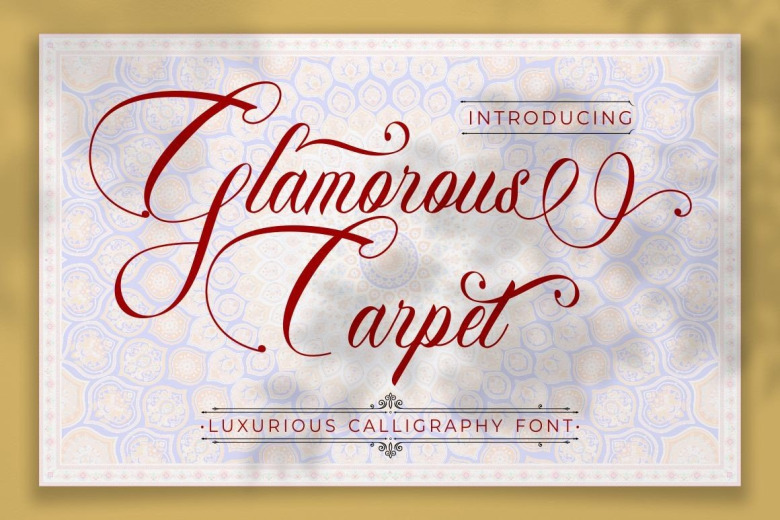
Glamorous Carpet Font
Glamorous Carpet is a luxurious script calligraphy font with charming, classic yet elegant touch. and was created to look as close to natural hand-drawn script so it looks beautiful like for branding, logos, poster, title, packaging,
Glamorous Carpet Calligraphy Script Font